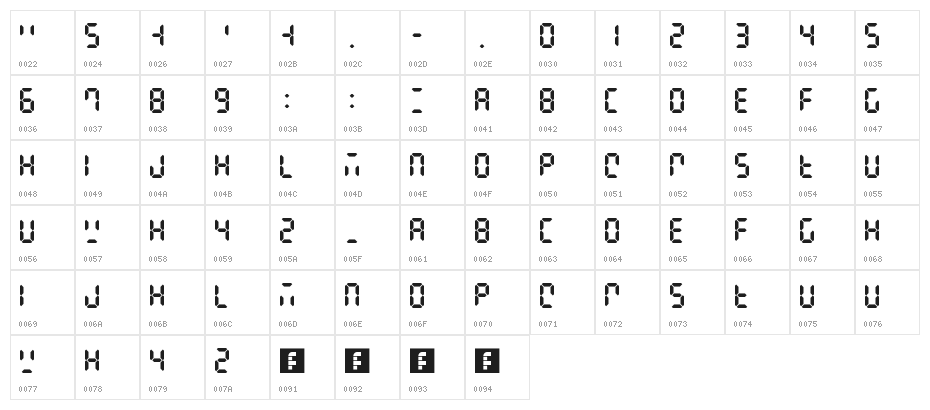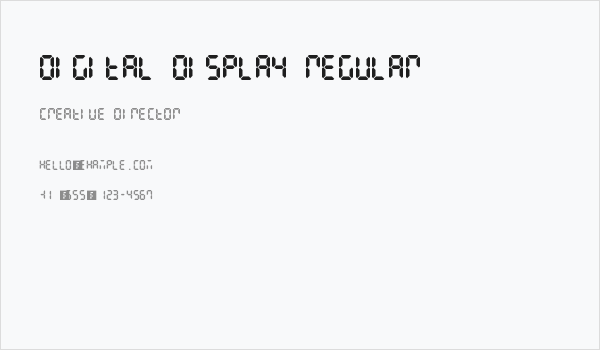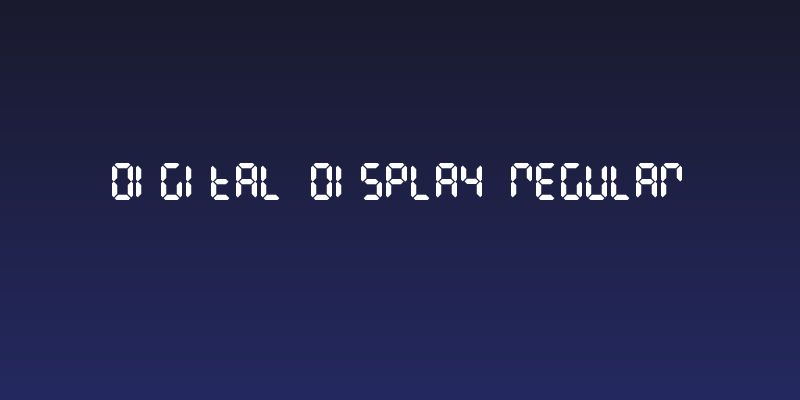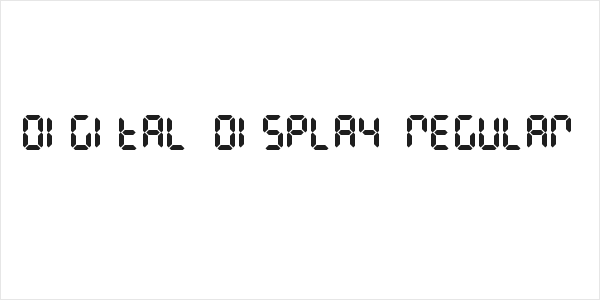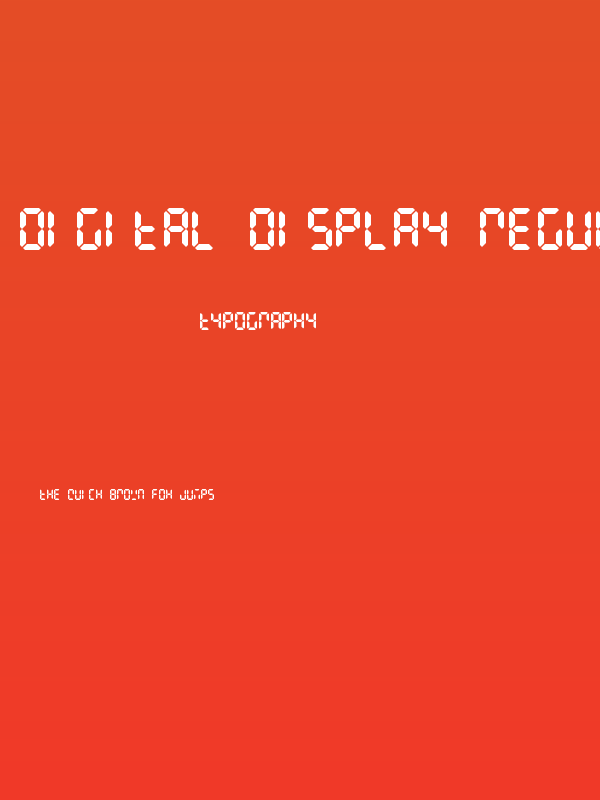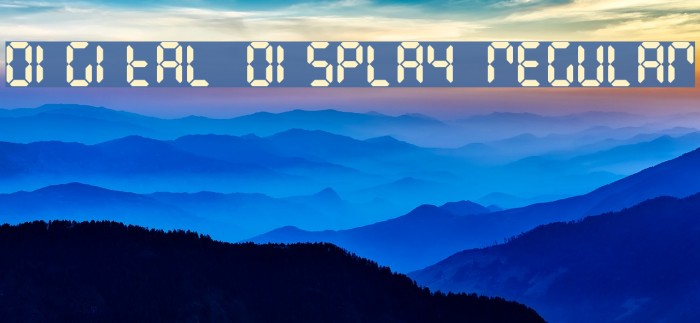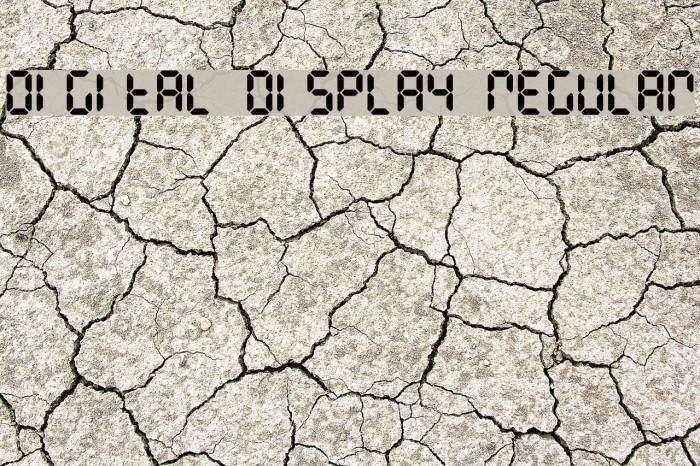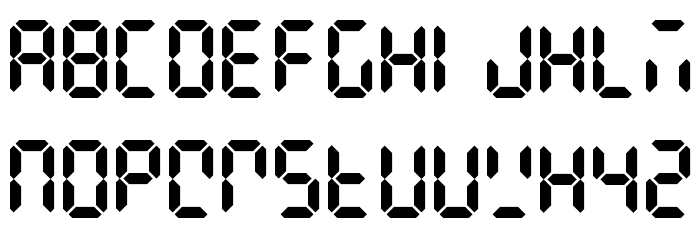
Digital Display Regular Font
Digital Display Regular Description
This font is reminiscent of digital displays, featuring a segmented, geometric style that mimics the appearance of classic LED or LCD screens. Each character is composed of distinct segments, creating a blocky and angular look. The uniformity and precision of the segments give it a technical and futuristic feel, ideal for conveying a sense of modernity and technology. The font maintains consistent spacing and alignment, ensuring readability and clarity, even at smaller sizes. Its design is straightforward, with no additional flourishes or embellishments, emphasizing function over form.
| Use Case | Headlines, Digital displays, Tech interfaces |
| Proposed Projects | Ideal for digital clocks, electronic interfaces, tech-themed designs, and retro-futuristic projects. |